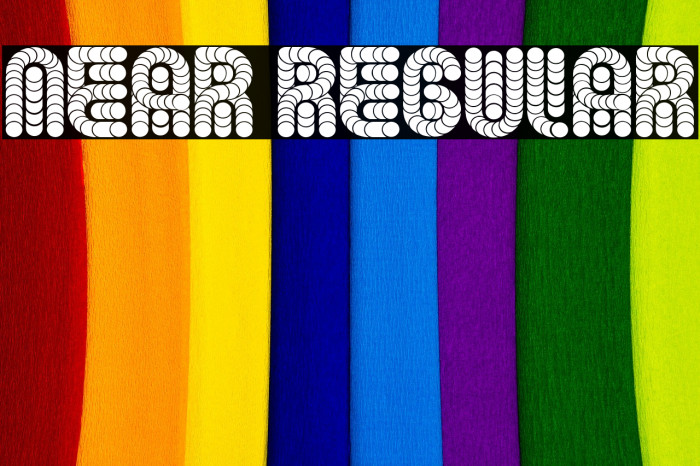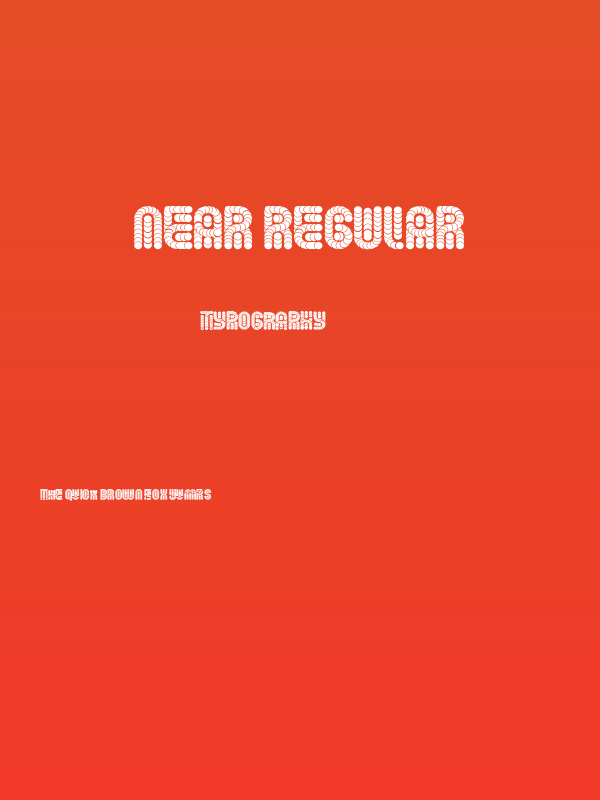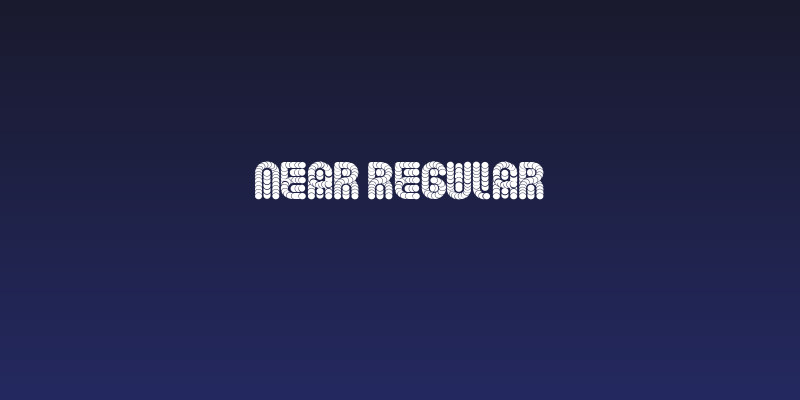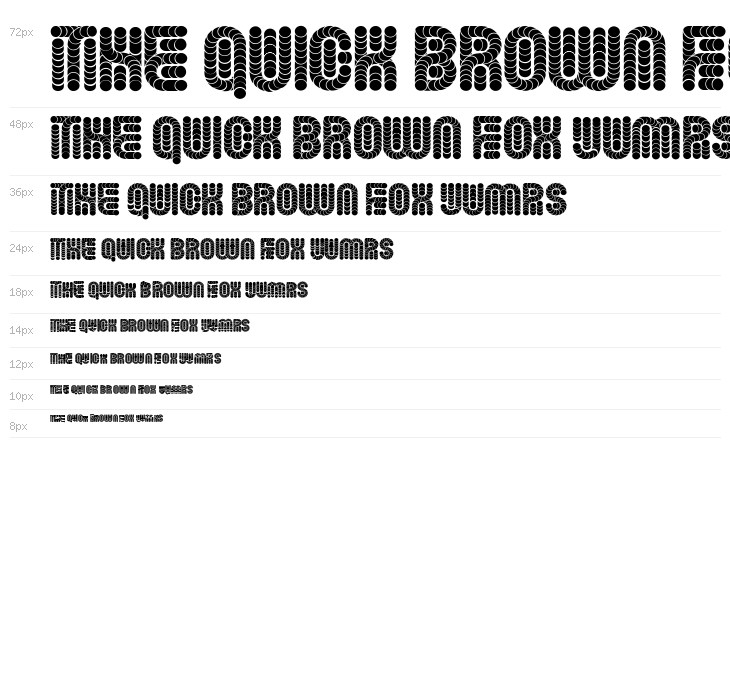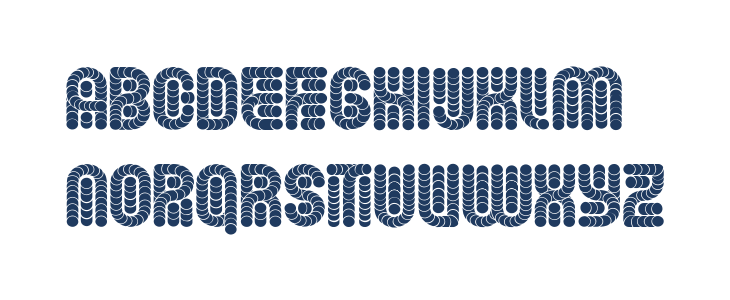
Near Regular Font
Near Regular Description
This font features a bold and decorative style, characterized by its intricate pattern of concentric circles forming each letter. The design is highly geometric, with a consistent repetition of circular motifs that create a visually striking and modern appearance. Each character is composed of multiple overlapping circles, giving the font a unique texture and depth. The overall effect is both playful and sophisticated, making it suitable for projects that require a strong visual impact. The font's distinct style is ideal for creative and artistic applications, where its boldness can be fully appreciated.
| Proposed Projects | Ideal for posters, album covers, branding, and any project requiring a bold, artistic touch. |